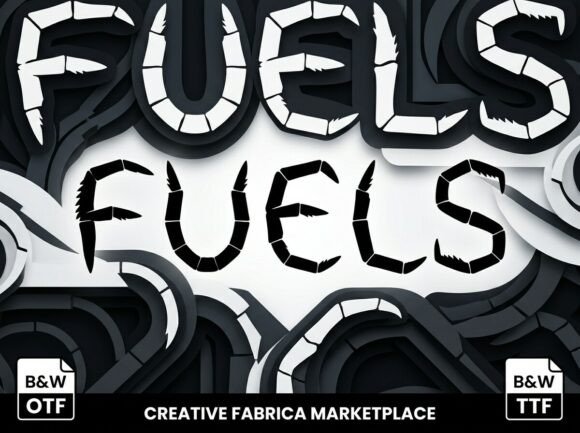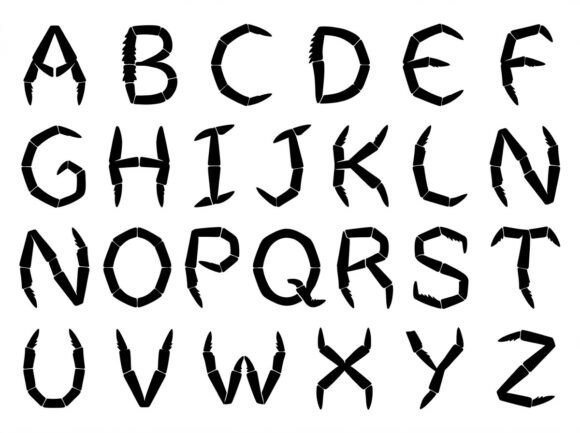
Introducing Fuels Font: The Ultimate Decorative Display Font for Creators
Are you tired of using the same old fonts for your creative projects? Look no further than Fuels Font, a stunning decorative display font designed to grab attention and make your work stand out. With its unique artistic elements and strong visual personality, this font is perfect for creators who want to break away from the ordinary and add a touch of sophistication to their designs.
What Makes Fuels Font Special?
Fuels Font is a versatile font that can be used for a variety of creative projects, including bold headlines, artistic logos, and creative packaging. Its professional and polished finish ensures that your designs look high-end and visually appealing. The font features a unique and artistic design, with every letter carefully crafted to make a statement.
Before purchasing Fuels Font, it’s essential to note that this font is an ALL-CAPS (Uppercase Only) display typeface. This means that it does not include lowercase letters, making it specifically designed for high-impact headlines, logos, and decorative initials where every letter is a work of art.
Fuels Font is ideal for designers and crafters who want to add a touch of elegance and sophistication to their work. Whether you’re creating:
• Headlines: Use Fuels Font to create bold and eye-catching headlines that grab attention and make a statement.
• Logos: Create stunning logos that showcase your brand’s personality and style with Fuels Font.
• Packaging: Add a touch of creativity and elegance to your packaging designs with Fuels Font.
Why Choose Fuels Font?
With Fuels Font, you’ll get:
• Unique and artistic design: Every letter is carefully crafted to make a statement and add a touch of sophistication to your designs.
• Versatility: Use Fuels Font for a variety of creative projects, from bold headlines to artistic logos and creative packaging.
• Professional and polished finish: Ensure your designs look high-end and visually appealing with Fuels Font.
Fuels Font is a stunning decorative display font that’s perfect for creators who want to break away from the ordinary and add a touch of sophistication to their designs. With its unique artistic elements, strong visual personality, and versatility, this font is ideal for designers and crafters who want to make a statement. Purchase Fuels Font today and take your creative projects to the next level!